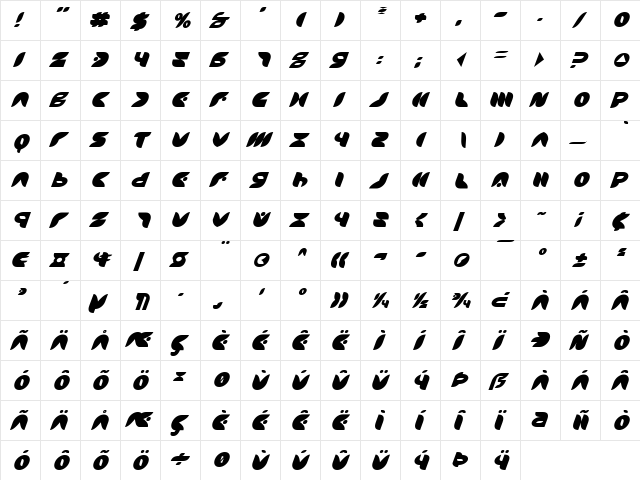
Puff Angel Italic Italic
Design Context for Puff Angel Italic Typeface
Puff Angel Italic is a composed and adaptable typeface that performs quietly and consistently across a wide range of design contexts. Its italic angle brings a sense of urgency and motion to the letterforms.
Pro Tip: Use Puff Angel Italic for emphasis, pull quotes, and subheadings where its slanted energy can add rhythm to the layout.